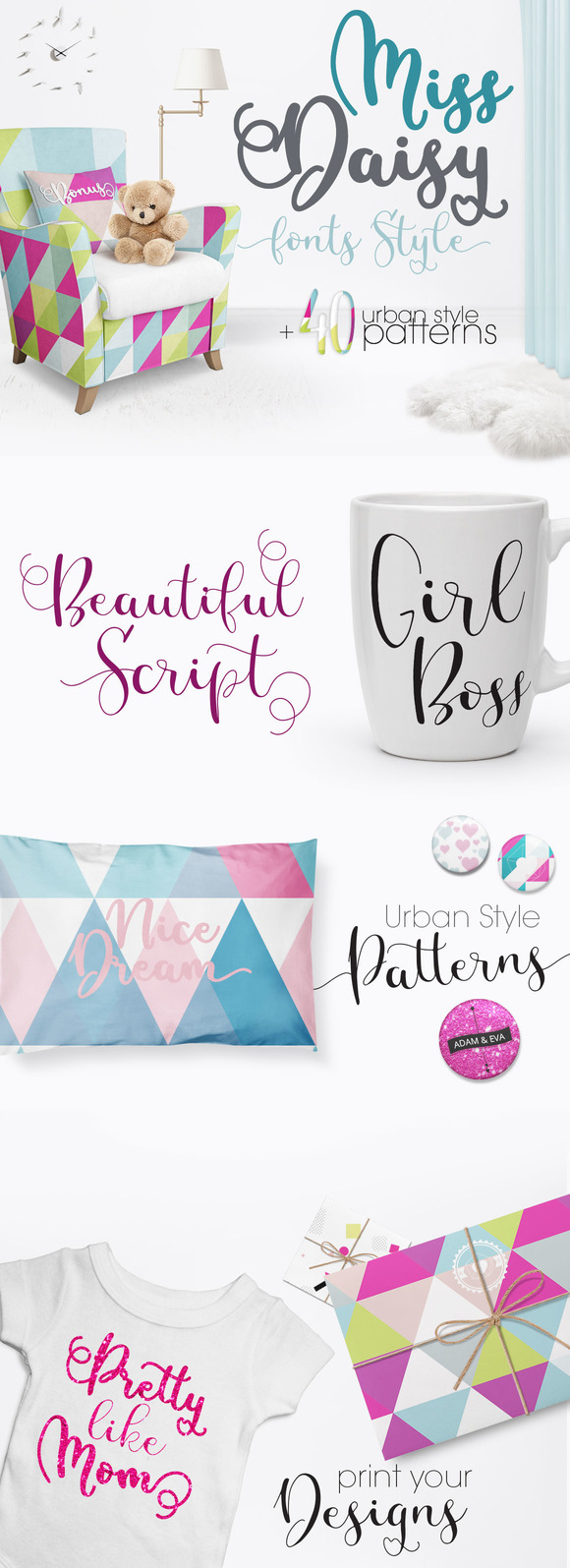
Miss Daisy
Miss Daisy Script Font
Miss Daisy fonts available in 2 weights, Smooth style in Bold and Light. And extra 2 styles of swashes available for giving us more flexibility to create creative design.
Miss Daisy fonts and patterns suitable for many fresh design project, Get some Inspiration and Let’s design!